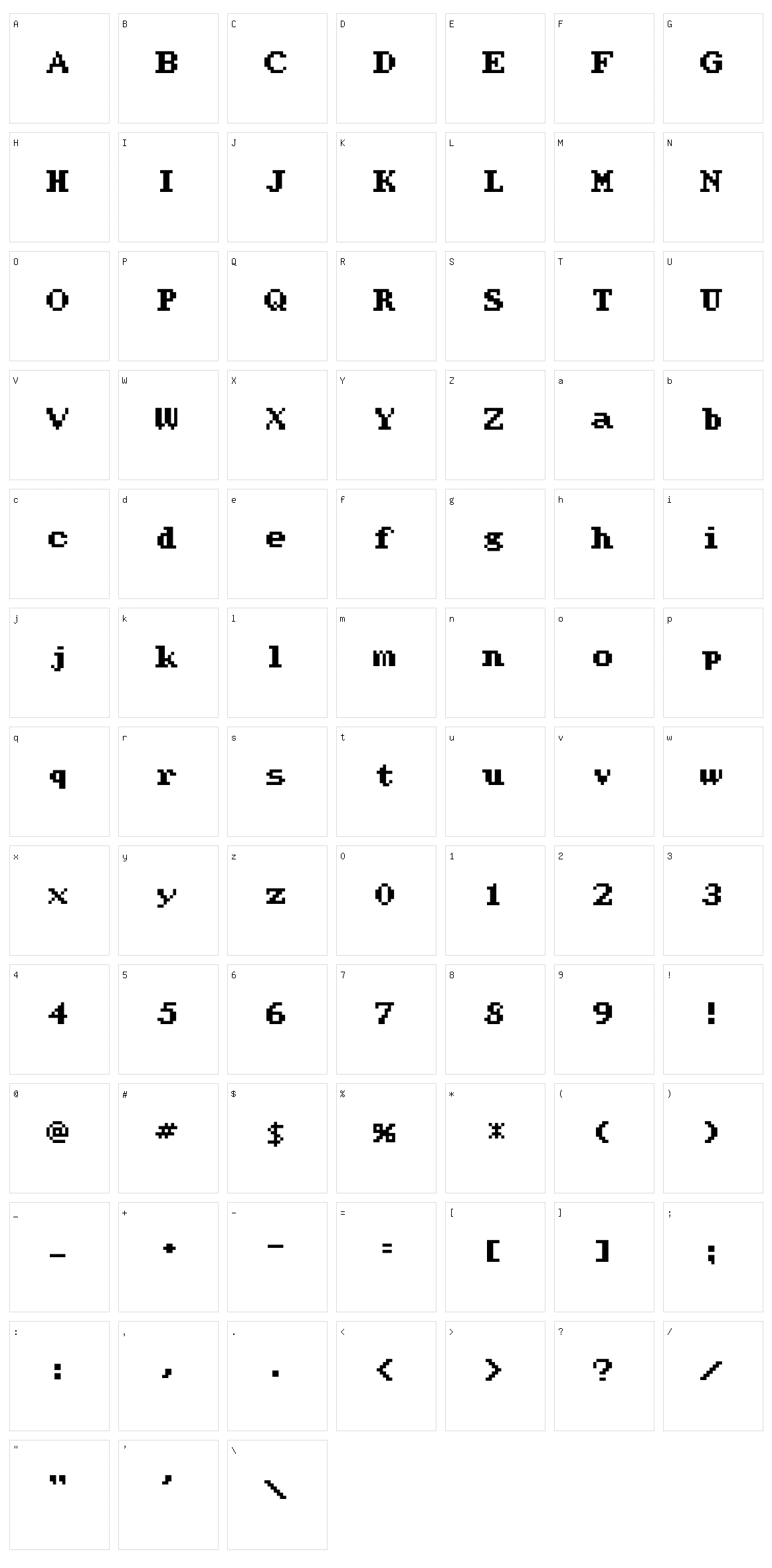
Werdnas Return
Designed by: Diogo Ribeiro
* * * * * Werdna's Return - A font based on the Wizardry series of RPGs * * * * *
Werdna's Return is a 1:1, 1px spaced, mostly faithful recreation of the font used
in Sir-Tech's Wizardry series, specifically the one used in the series' japanese
releases (such as "Wizardry I-II-III: The Story of Llylgamyn", and "Wizardry
Gaiden IV: Throb of the Demon's Heart") during the late 90's. This is different
from the original computer versions, which used the Apple ][ system font.
Note that I say "mostly faithful" as I did not recreate the japanese characters
found in the games.
Unlike other videogame series, such as The Legend of Zelda, Metal Gear Solid or
Donkey Kong, the Wizardry series has seen little to no widespread use, or indeed
demand, for its font, and as such has remained as obscure as it Japanese releases.
Yet, it remains a concise, even sophisticated font of the 16-bit Super Nintendo
game catalogue, and is now available.
The font's name is based on the fourth title in the series, the eponymous Werdna's Return, itself a play on one of the author's names (Andrew).